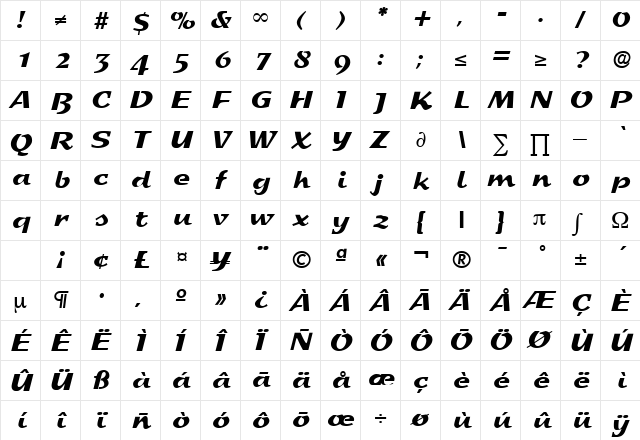
Sprint DB Medium Font Preview
Sprint DB Medium
Sprint DB Medium Font Details
Design Context for Sprint DB Typeface
Sprint DB takes a measured approach to typography — its balanced proportions and neutral character make it a reliable workhorse for both digital and print work.